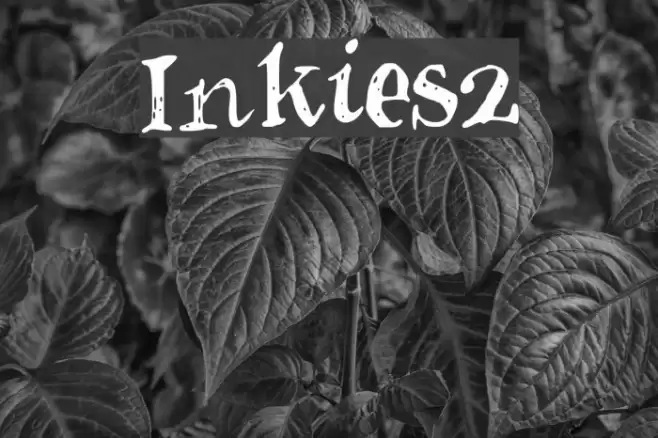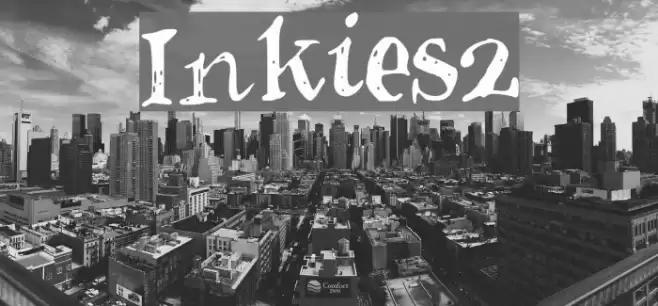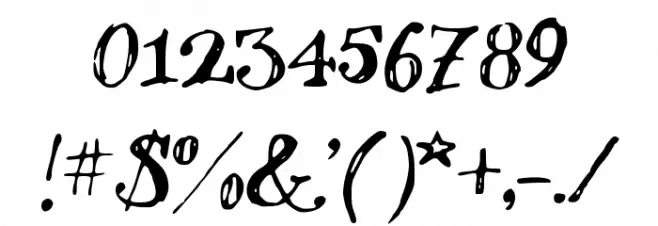
Inkies2 Font
Inkies2 Description
This font features a unique, distressed style with irregular edges and a hand-drawn appearance. The characters have a whimsical and slightly chaotic look, reminiscent of ink splatters or brush strokes. The uppercase and lowercase letters maintain a consistent style, with varying stroke widths that add to the font's dynamic and artistic feel. The numbers and special characters follow the same theme, ensuring a cohesive look across all glyphs. This font is ideal for projects that require a creative and unconventional touch.
A distressed, hand-drawn font with irregular edges and an artistic flair from Uncategorized fonts.
- Proposed Projects: Perfect for artistic posters, album covers, creative branding, and unique invitations.
- Use Case: Headlines, Logos, Creative projects